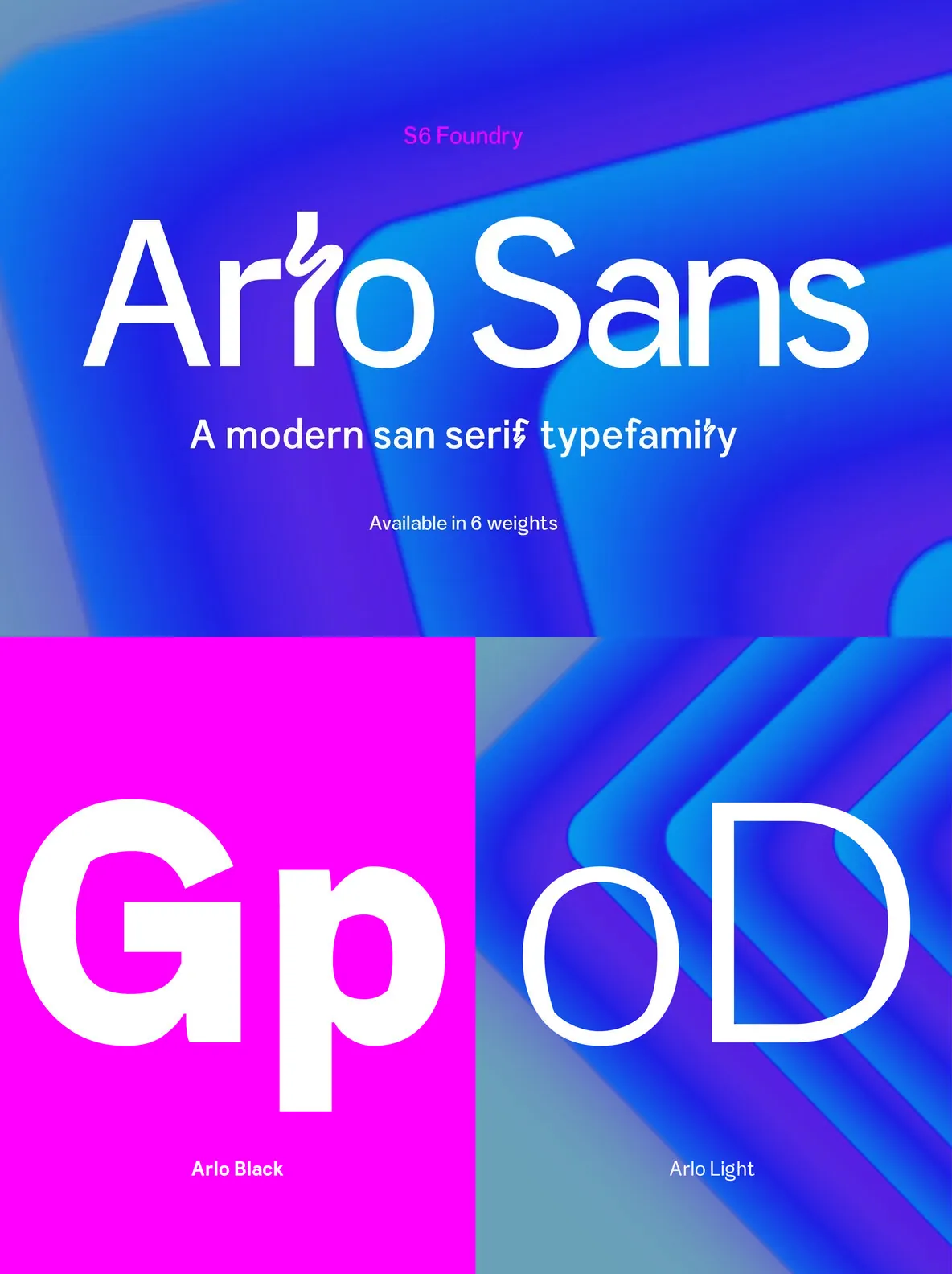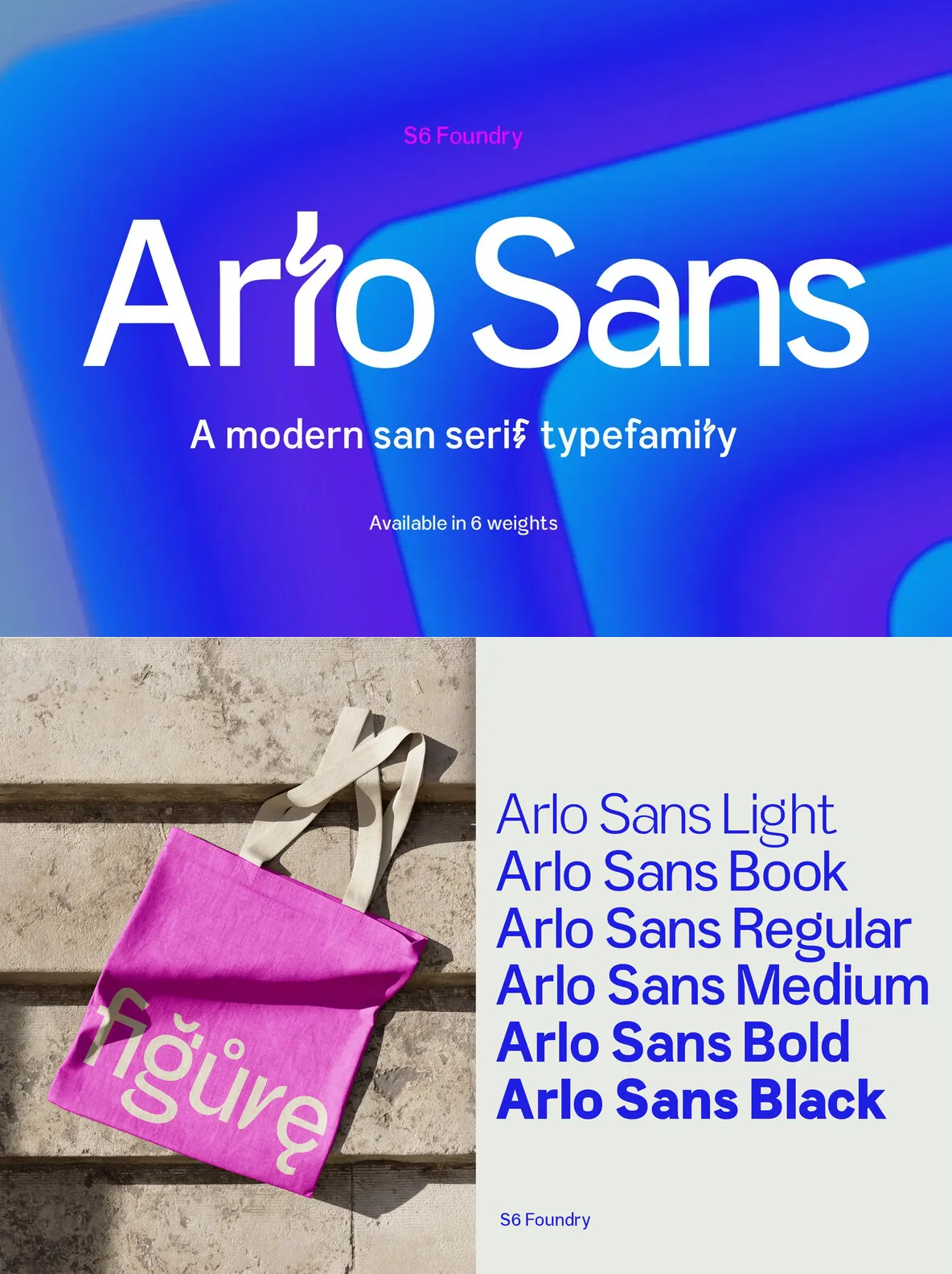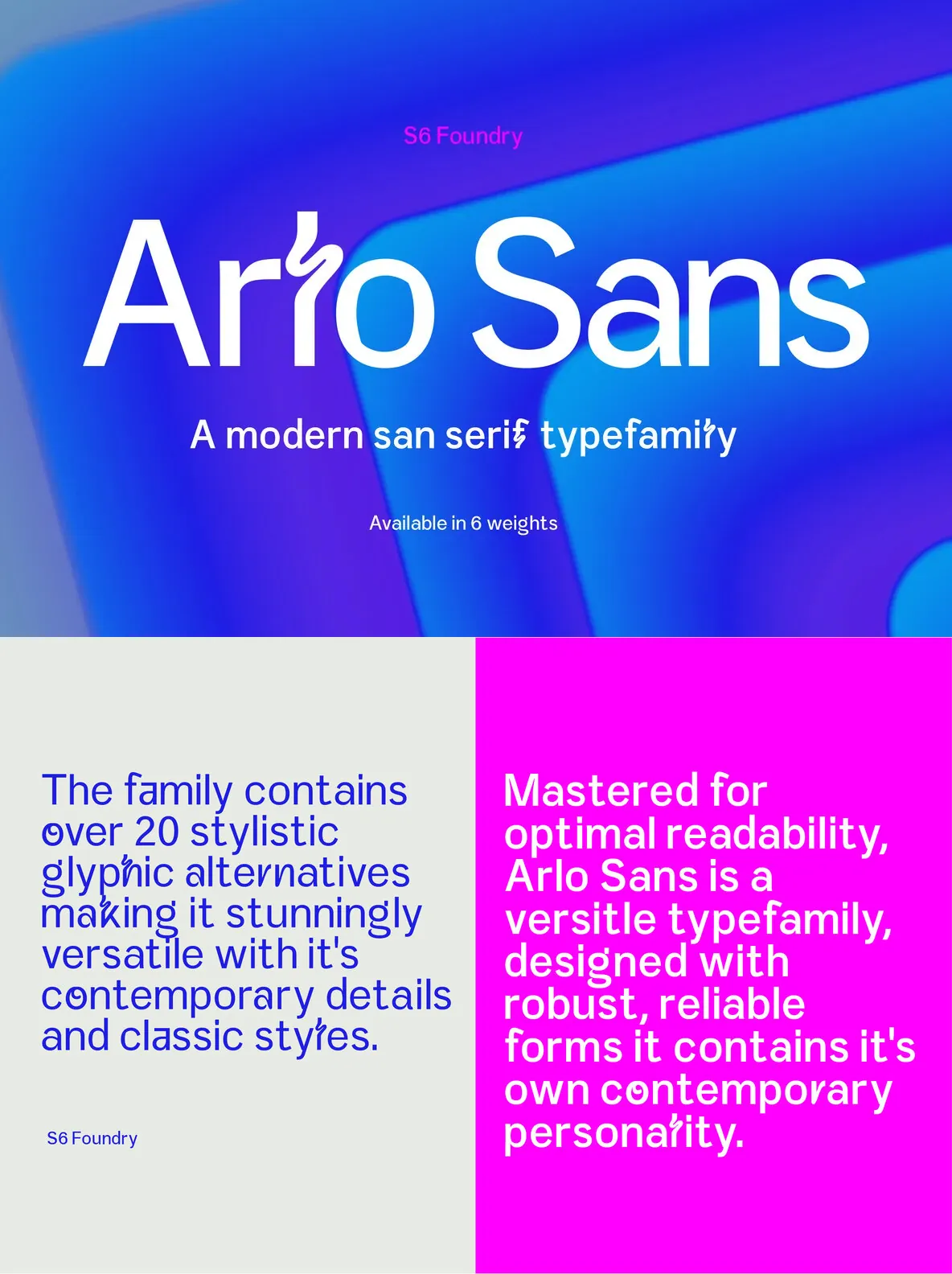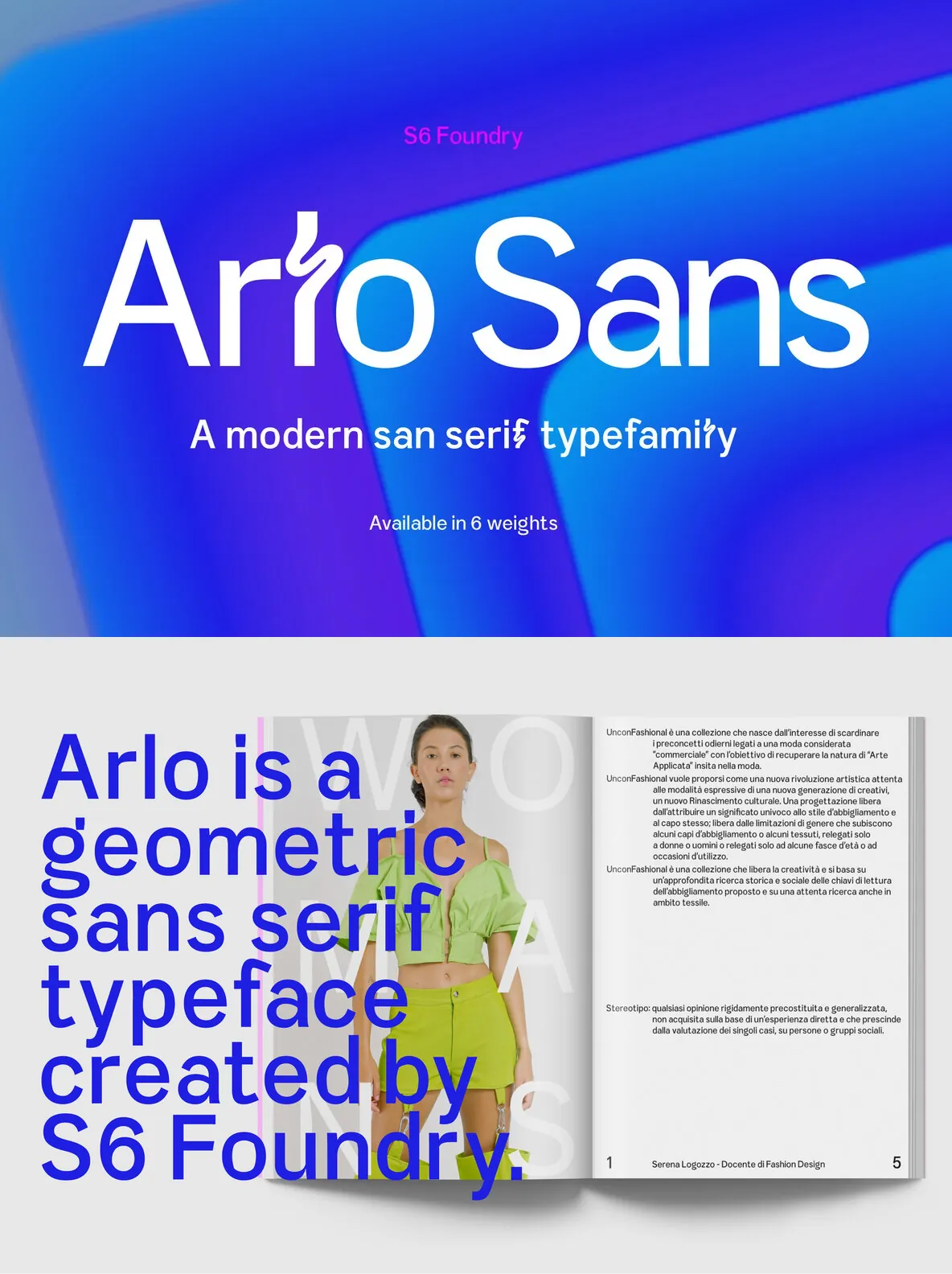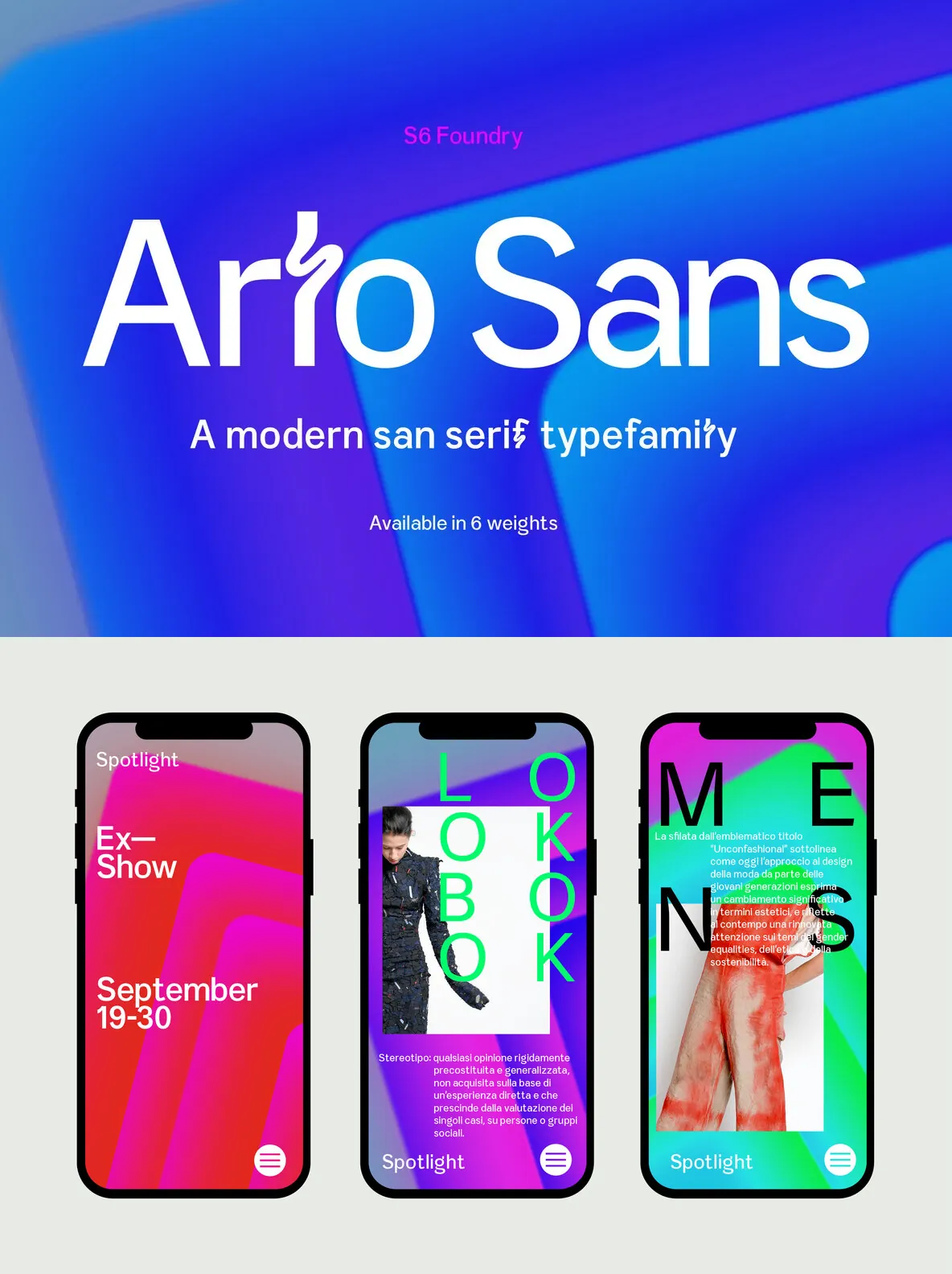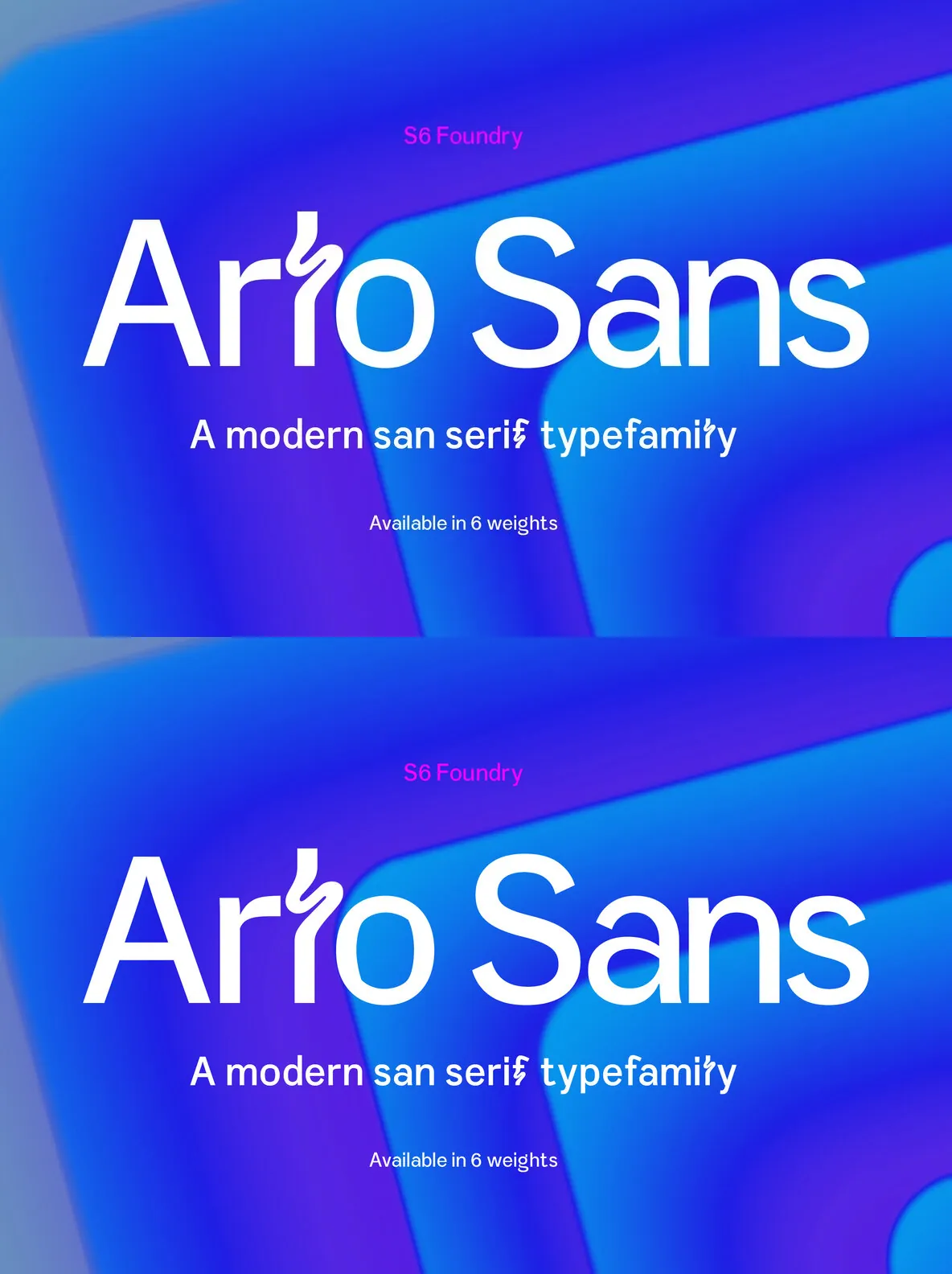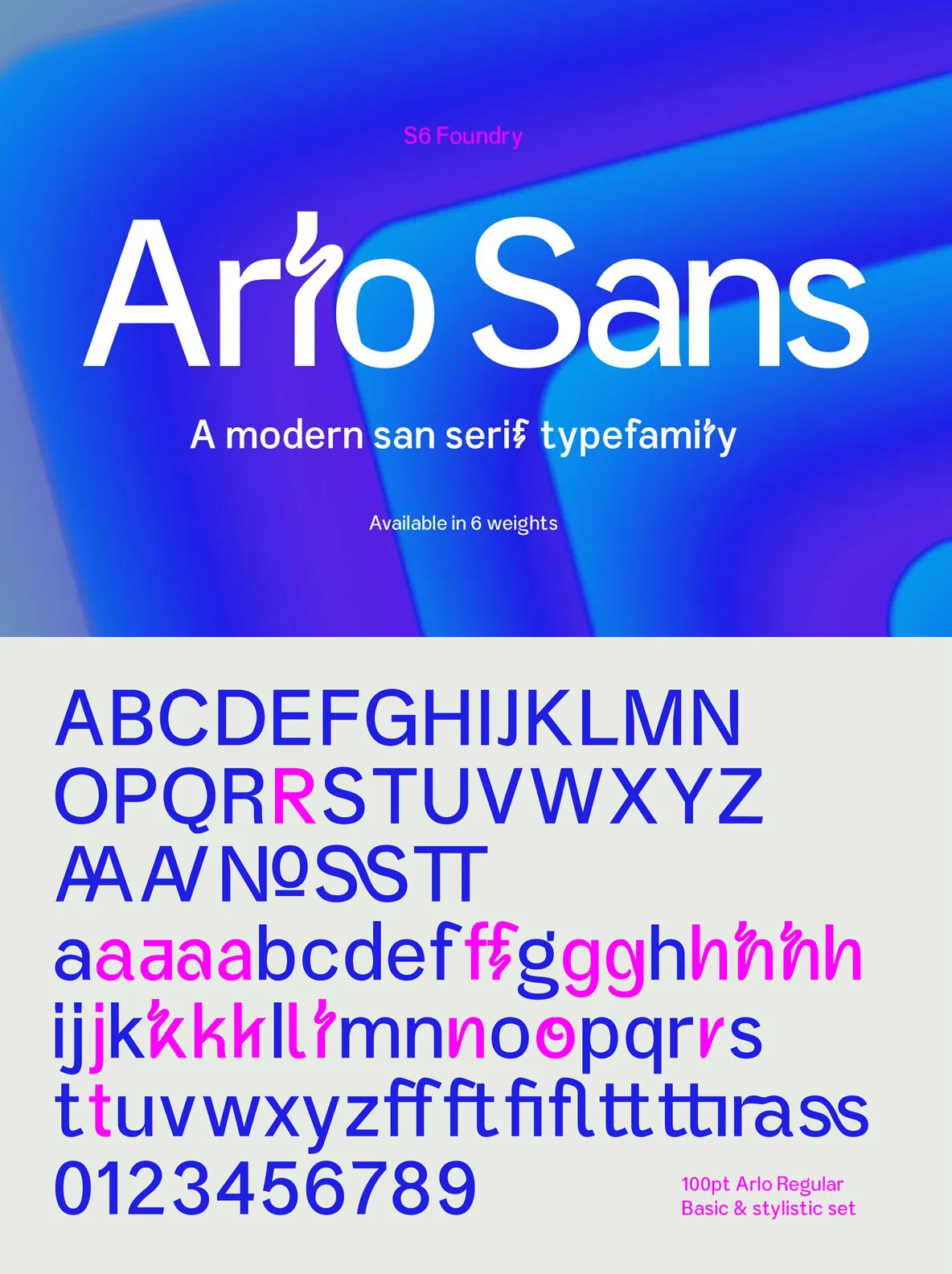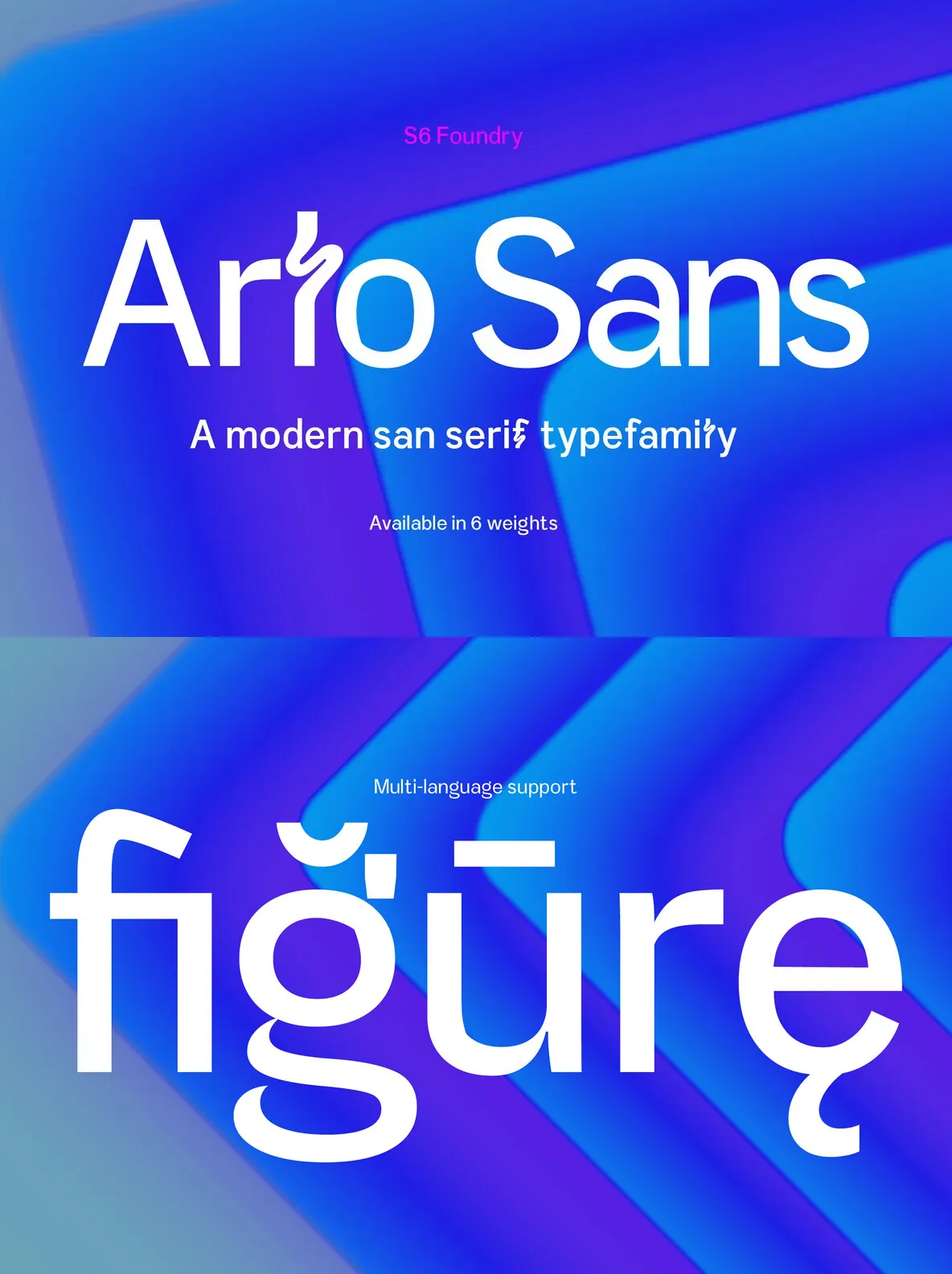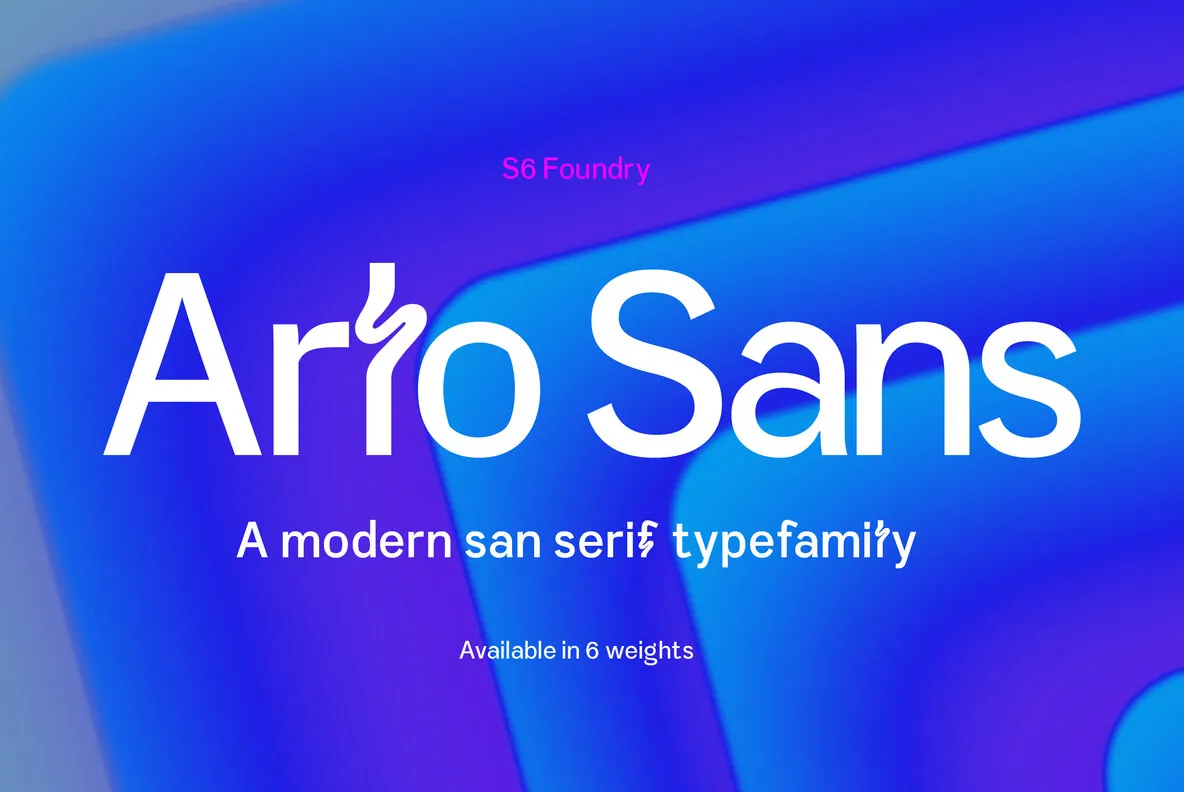
Arlo — Geometry with Subtle Intent
Arlo is a geometric sans serif typeface with purposeful, subtle design touches—careful details and small deviations from conformity. The width of the counters and its comfortable, breathable apertures give Arlo Sans excellent legibility and contrast across weights and sizes. It reads clearly in text and holds up in display settings where precision matters.
Mastered for optimal readability, Arlo Sans is a versatile type family designed with robust, reliable forms. It keeps a contemporary personality while staying grounded in classic structure. The family includes over 20 stylistic glyphic alternatives, making it exceptionally flexible for branding, editorial, and digital interface work where modern details and classic styles need to sit comfortably together.